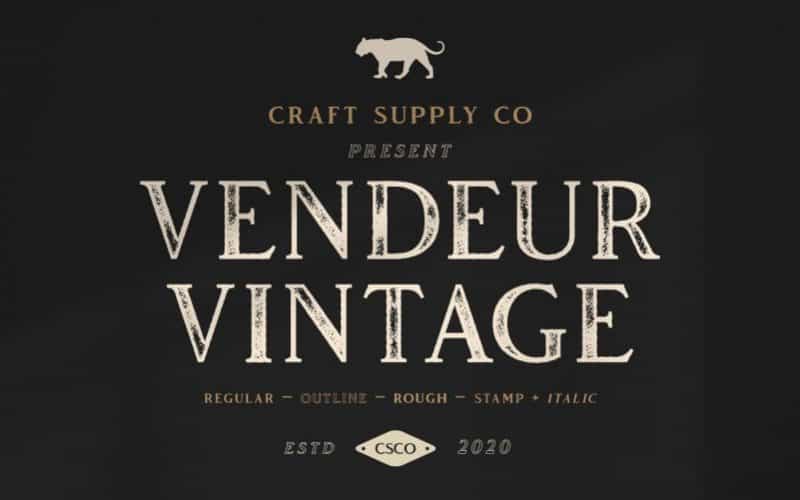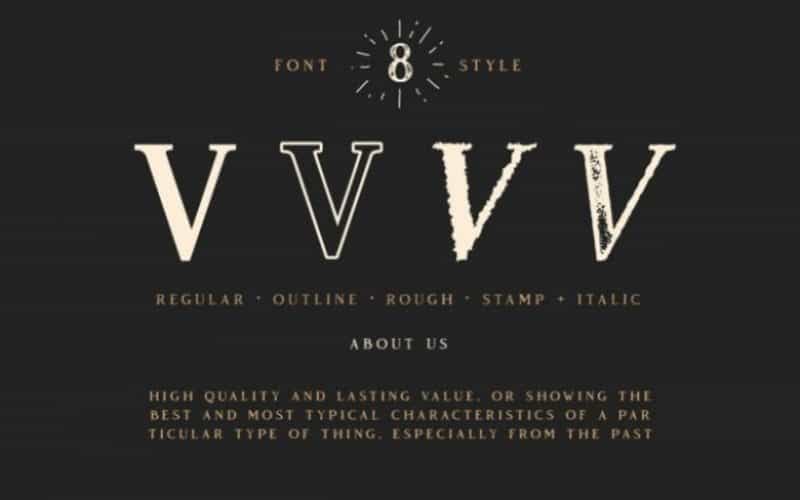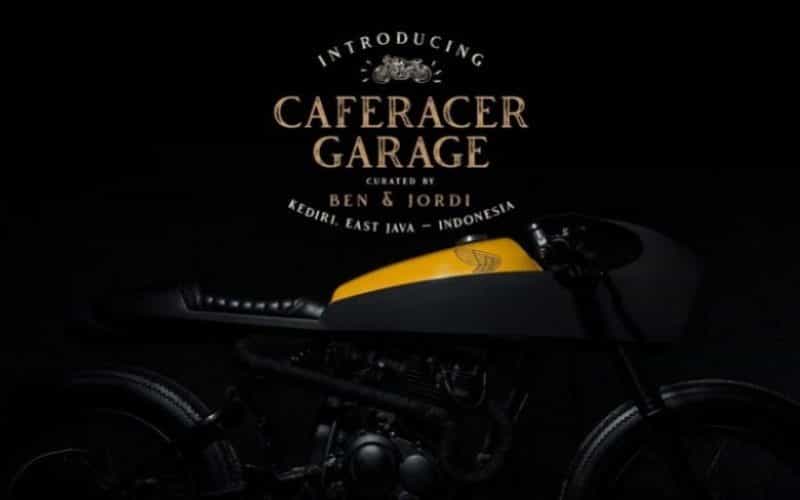
The invention of Vendeur Vintage Font Family + Extras comprises 8 Style Fonts. It is applicable to the development of practically all kinds of design projects, including print materials. Just apply your creativity and some graphic design set in Extras, your project will be more lively and beautiful than ever with one of the Vendeur Vintage Font.